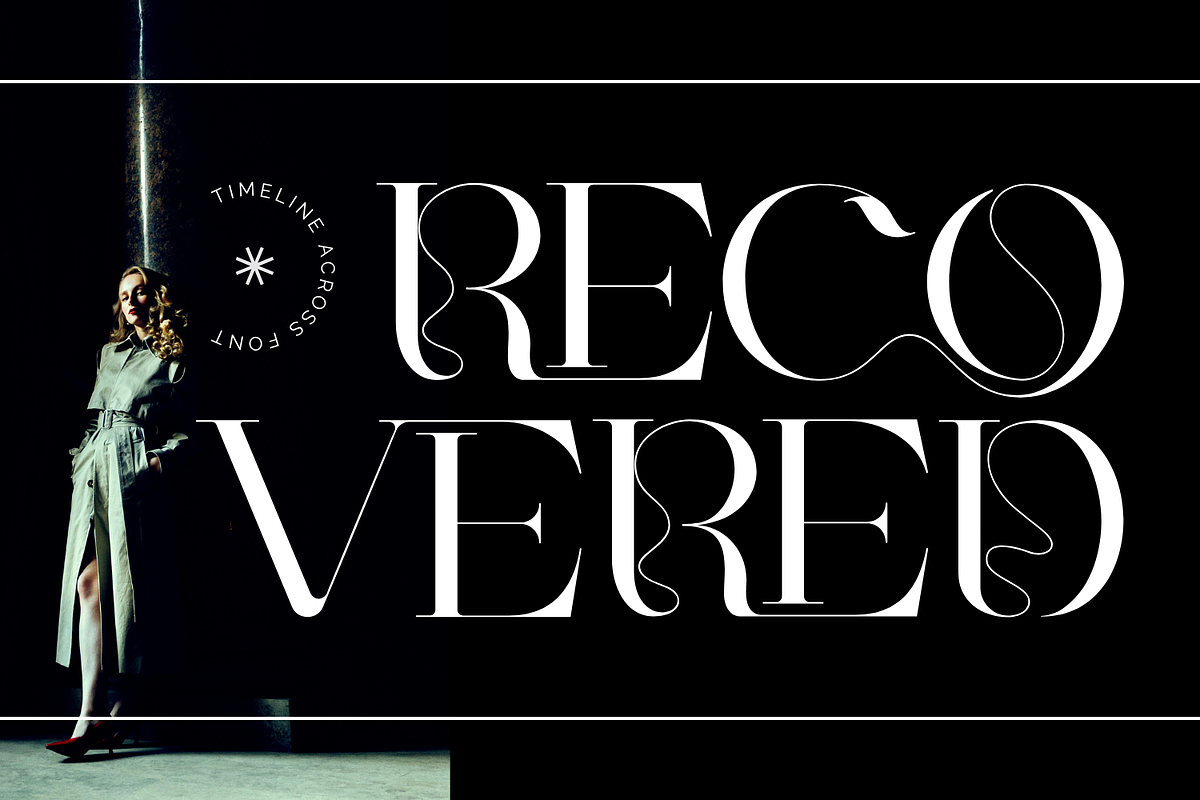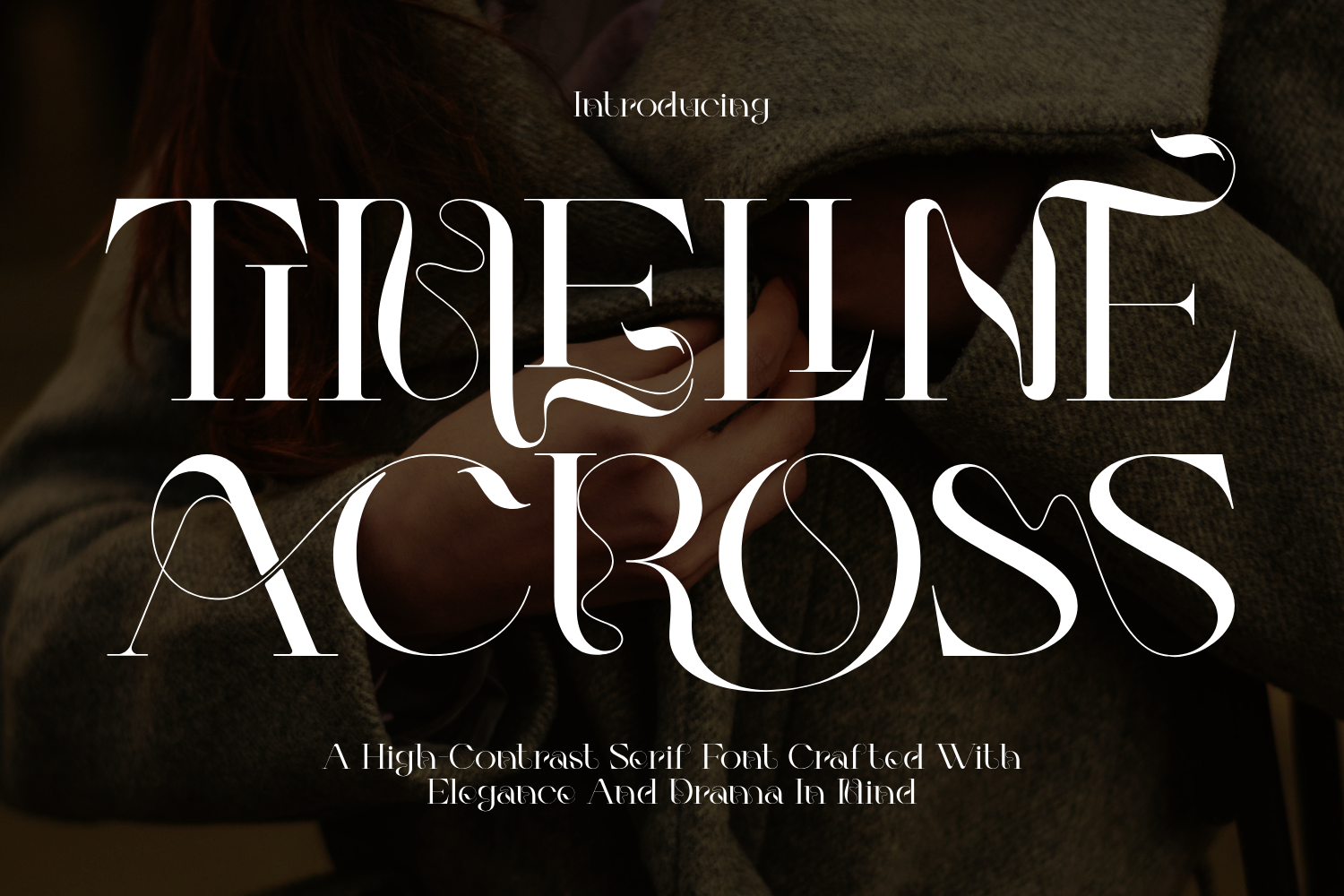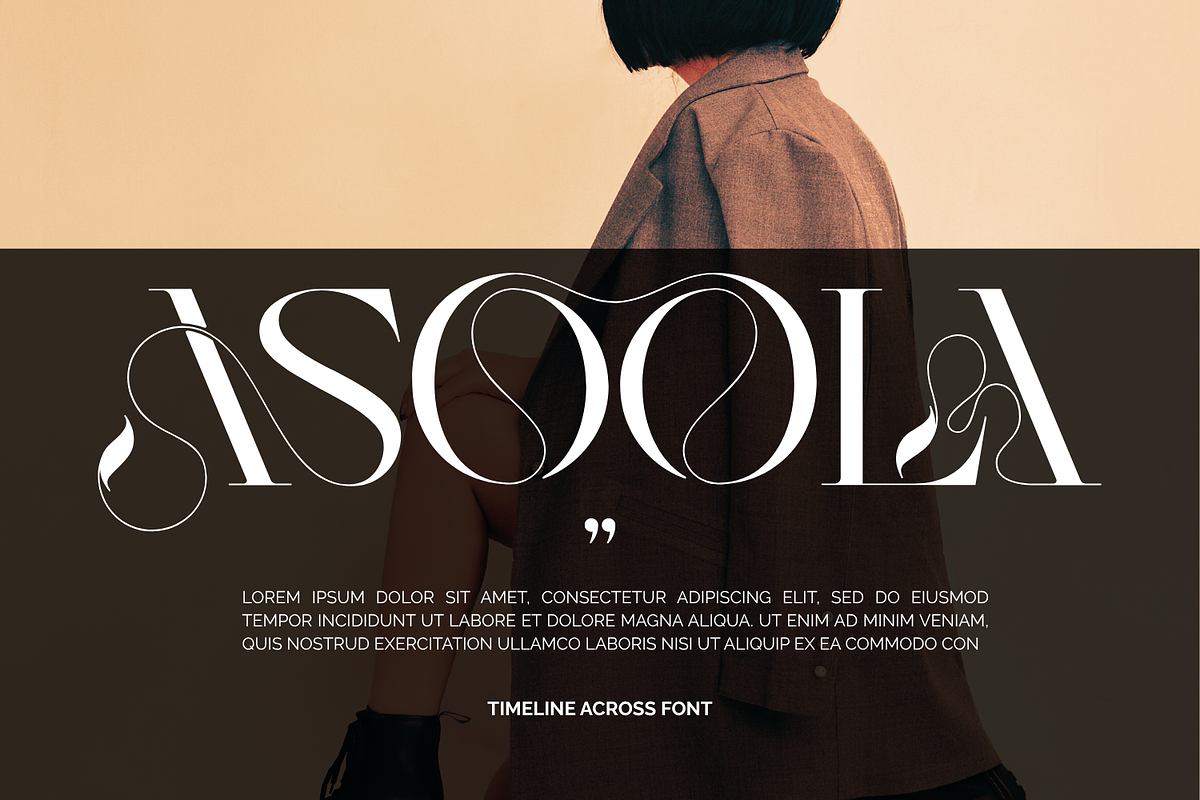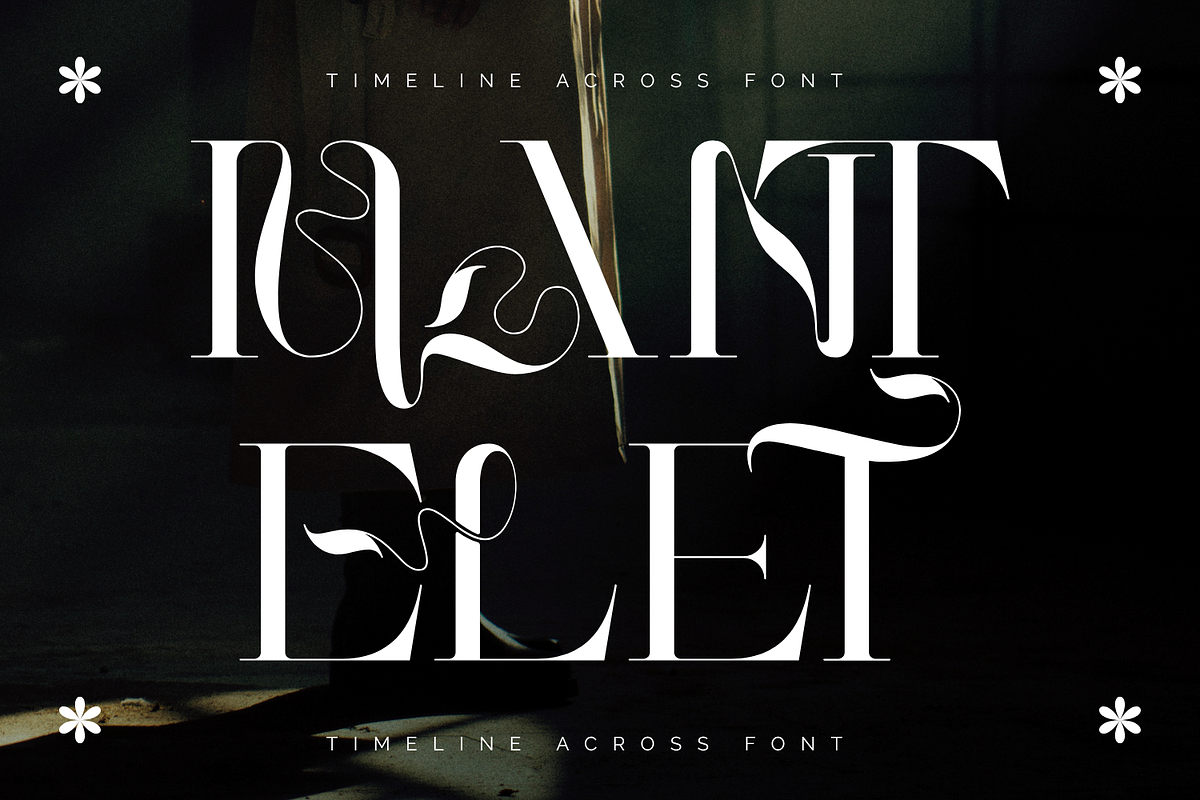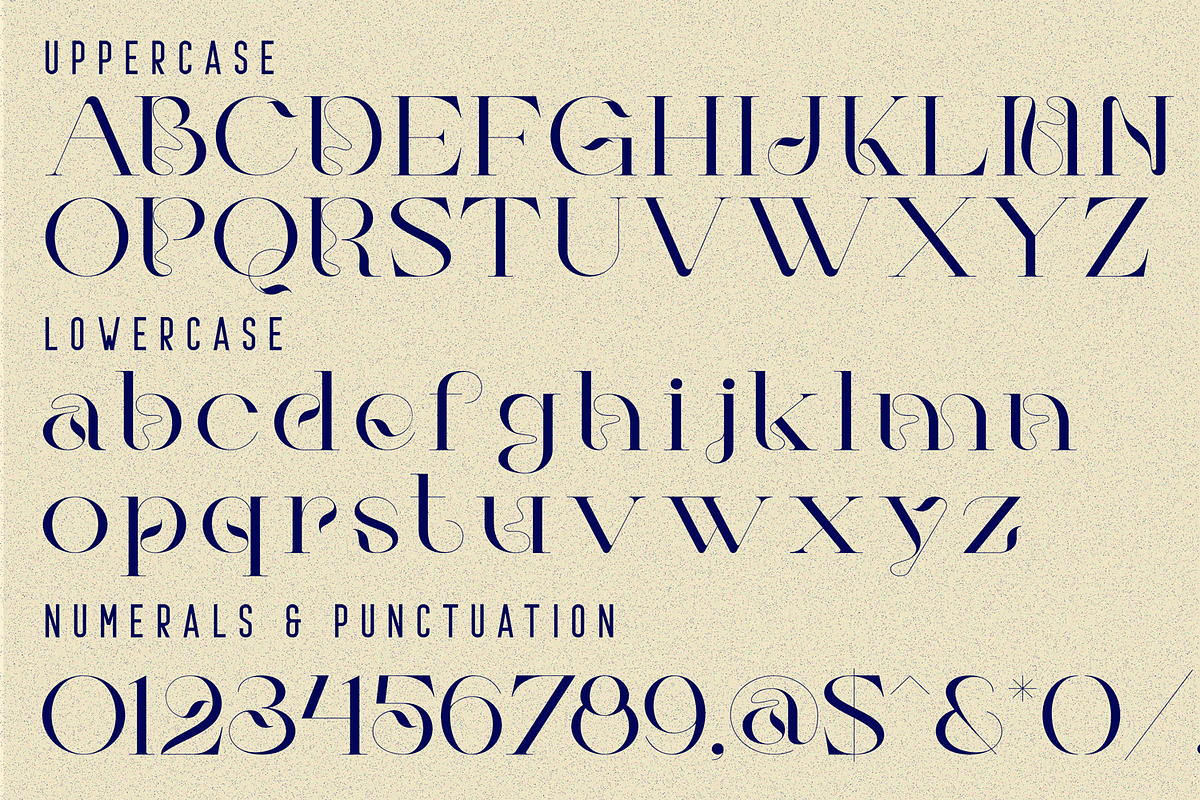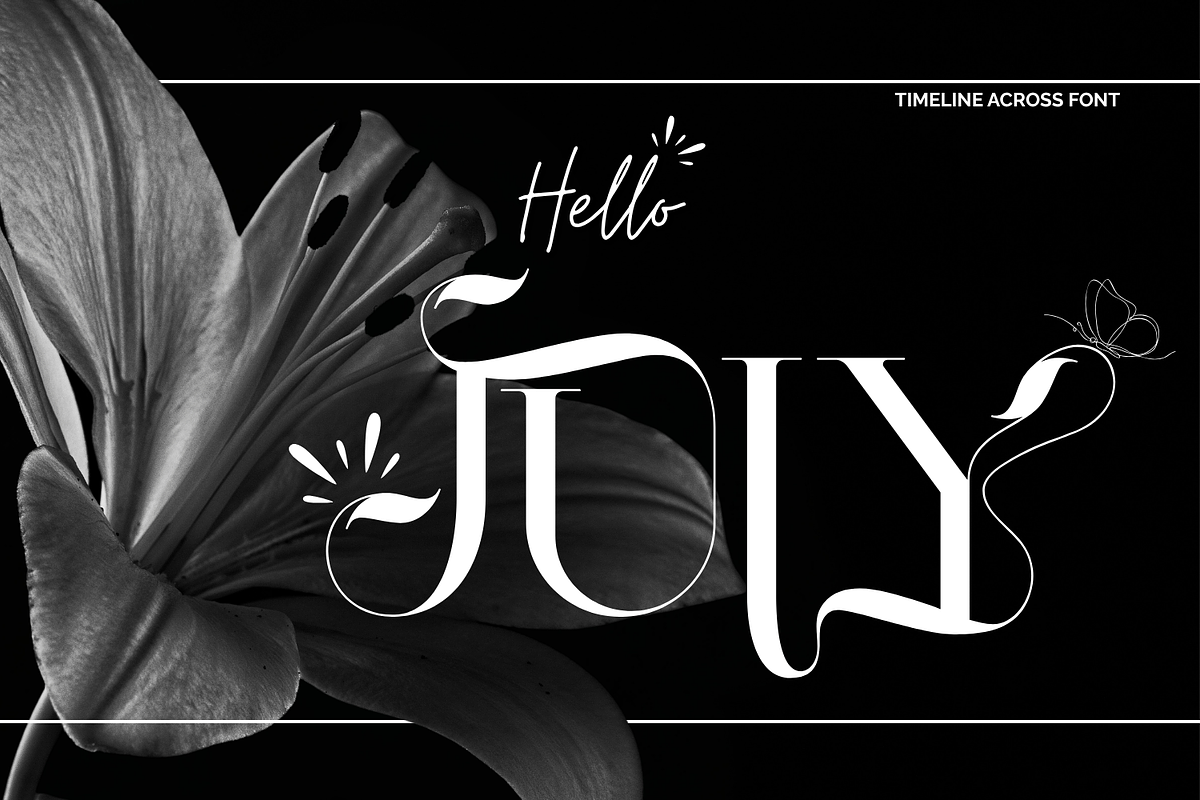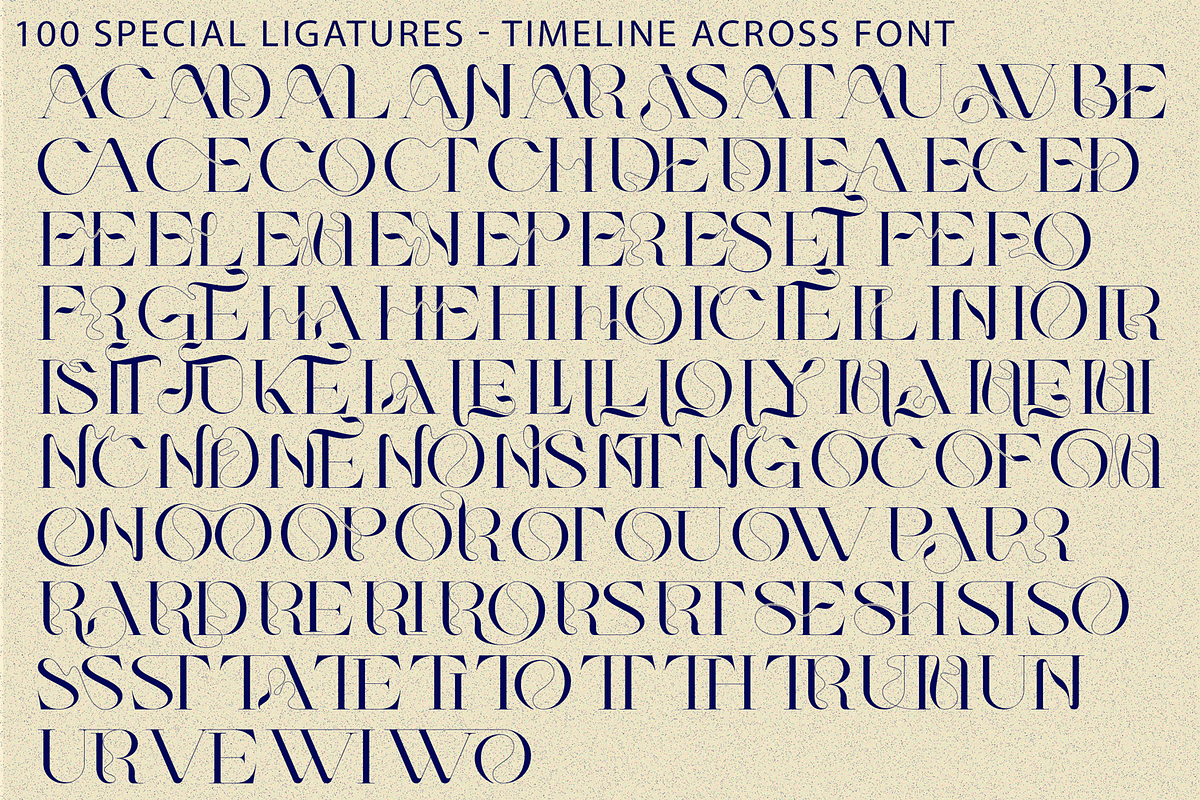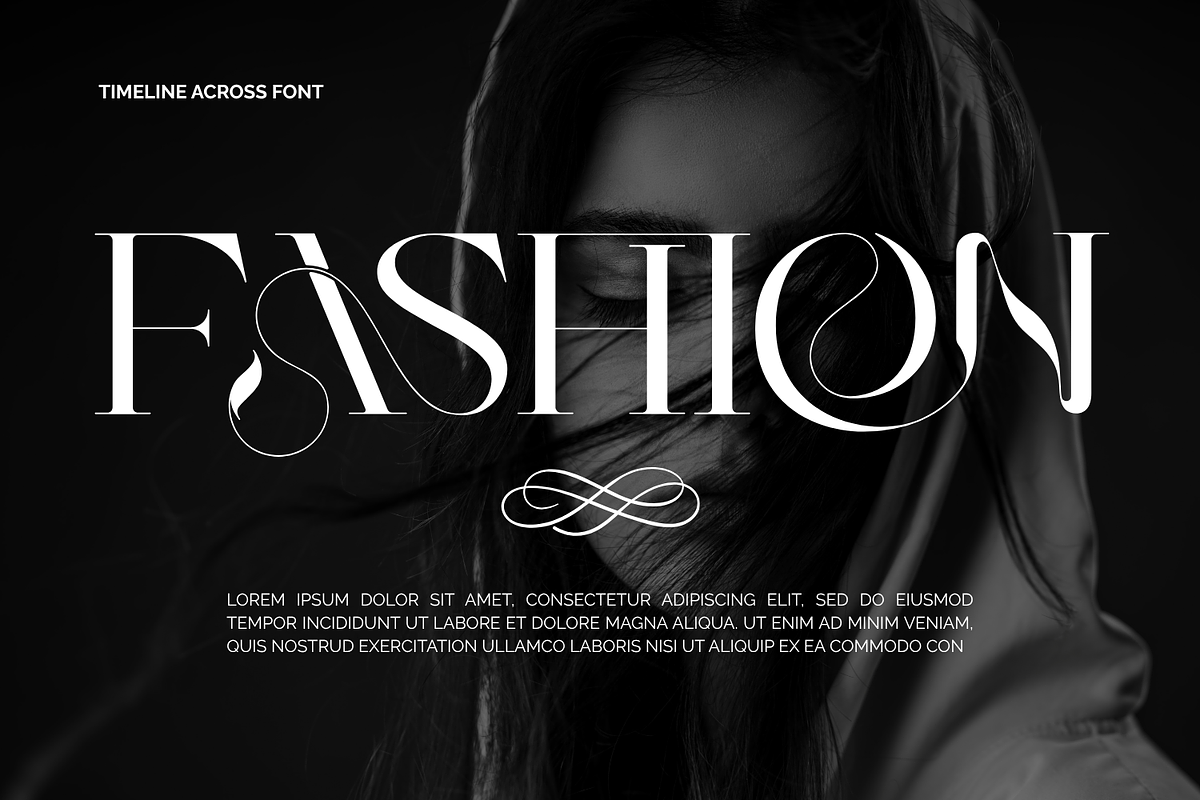
TIMELINE ACROSS - LUXURY FONT
TIMELINE ACROSS - LUXURY FONT – Modern Luxury Editorial & Art Nouveau Display Serif, modern editorial display serif designed to bring high-fashion sophistication and timeless poetic grace to your visual designs. Drawing rich inspiration from Art Nouveau curves and contemporary luxury typography, this typeface features exquisite internal wave flourishes and fluid swashes that weave effortlessly through each letterform.
With its striking high-contrast proportions and botanical-inspired terminals, TIMELINE ACROSS creates an enchanting, high-end aesthetic. It is meticulously engineered for designers creating luxury branding, high-fashion editorial covers, cosmetic packaging, wedding invitations, boutique logos, and aesthetic typography layouts. Infuse your artwork with a touch of graceful romance and unforgettable elegance using TIMELINE ACROSS.
🔤Features:
Uppercase & Lowercase Letters
Around 100 Special Ligatures & Alternates
Accented Characters for multilingual support
🔤About 100 ligatures combined with Stylistic Alternates Font:
AC AD AL AN AR AS AT AU AV BE CA CE CH CO CT DE DI EA EC ED EE EL EM EN EP ER ES ET FE FO FR GE HA HE HI HO IE IC IL IN IO IR IS IT JU KE LA LE LI LL LO LY MA ME MI NC ND NE NG NO NT NS OC OF OM ON OO OP OR OT OU OW PA PR RA RD RE RI RO RS RT SE SH SI SO SS ST TA TE TH TI TO TR TT UM UN UR VE WI WO